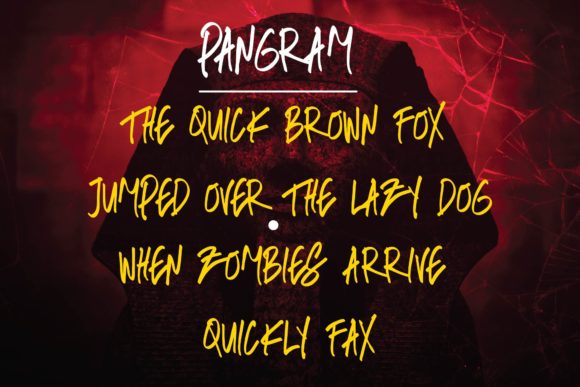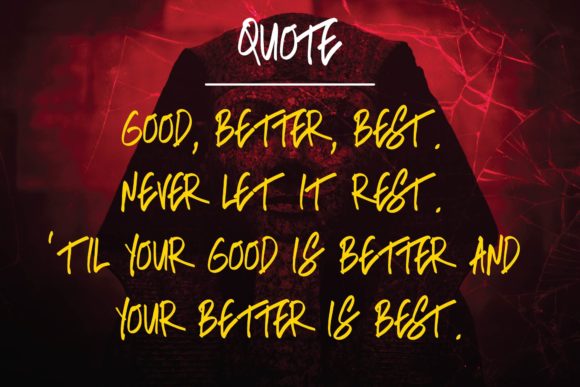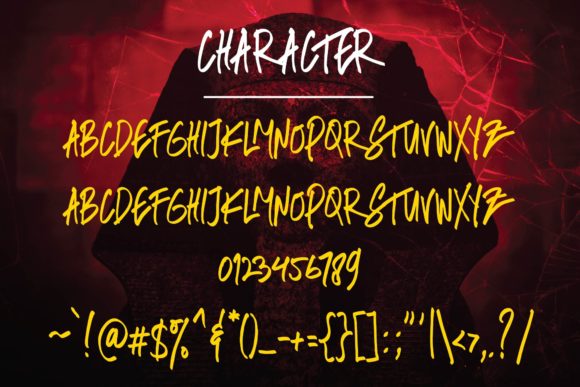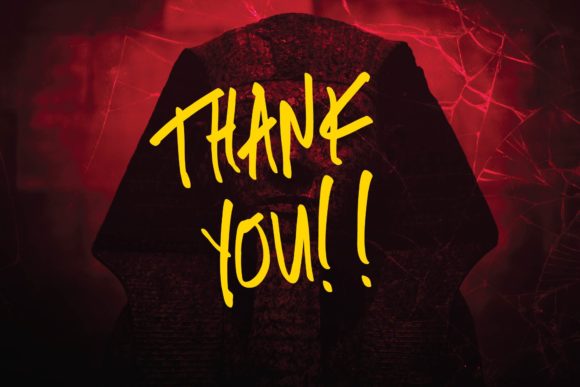
HomeScript FontsSphinxes Font Script Fonts Sphinxes Font FacebookXPinterestWhatsApp Sphinxes Font Poster 2 Sphinxes Font Poster 3 Sphinxes Font Poster 4 Sphinxes Font Poster 5 About Sphinxes Font Sphinxes is a bold and charming script with a modern style. Get inspired by its unique flavor! DOWNLOAD ON CREATIVE FABRICAThis font is sold and delivered by Creative Fabrica. Font Canyon may earn a commission if you buy through this link. People also explored Summer Dinosaurs Font Bujang Font Shiftera Font Modern Font Maharani Font Peach Puffins Font Syahrul Mubarok Font Gooday Font Ashemore 332 0 TagsSphinxes Font Previous articleRedleaf FontNext articleBoldey Font LEAVE A REPLY Cancel reply Comment: Please enter your comment! Name:* Please enter your name here Email:* You have entered an incorrect email address! Please enter your email address here Website: Save my name, email, and website in this browser for the next time I comment. Personal Use Free Dandelions Bloom Personal Use Free Read more about this font Urkelian Personal Use Free Read more about this font Limejuice Personal Use Free Read more about this font Welcome Creative Personal Use Free Read more about this font BLOG Top 10 Handwritten Fonts That Elevate Your Designs Top 10 Handwritten Fonts That Will Elevate Your Designs Handwritten fonts bring a warm, personal touch to every creative project. Whether you're designing logos, invitations,... Best Fonts for YouTube Videos: Make Your Thumbnails Stand Out How to Cut Any Font on Cricut: Convert a Font to SVG (Free) Exploring Font Trends